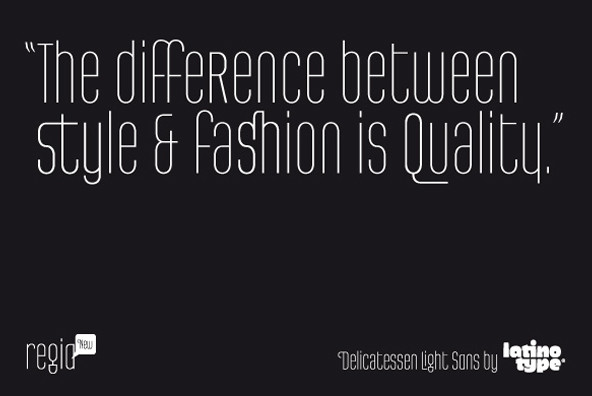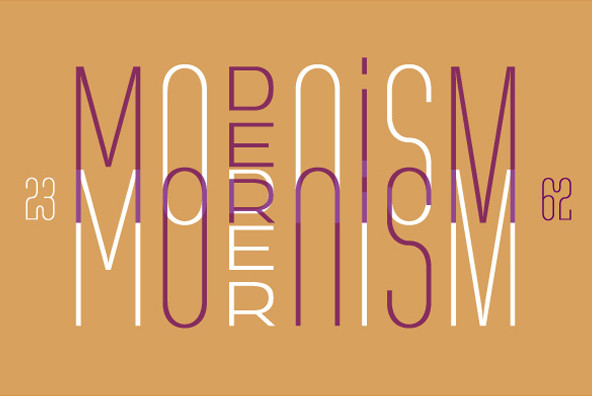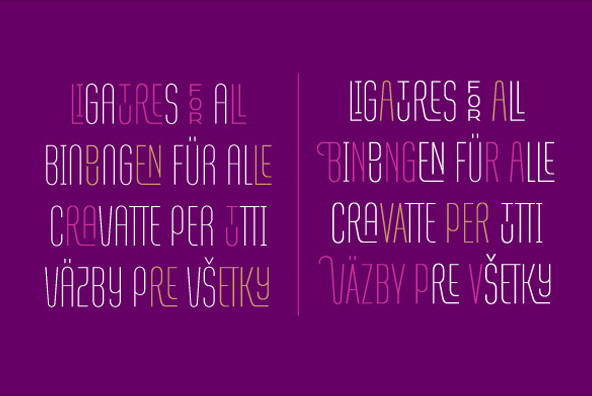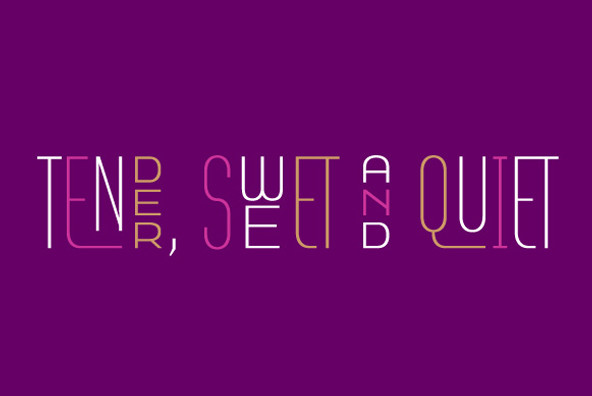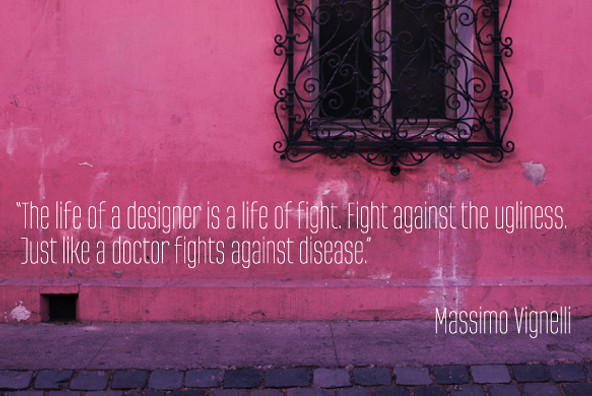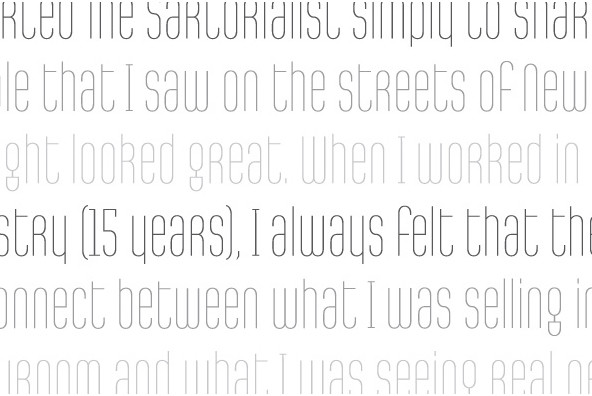
Regia Sans Pro
Foundry: LatinoType
Regia Sans is a typeface that began in 2008, in Concepción, Chile, and was first released for sale to see Latinotype. Is a very thin and condensed font with a modular design. It is recommended for short texts, in logos, magazines, posters, etc. This new version includes more than 1,300 characters in Opentype format, many ligatures (including diacritical marks and numbers), two groups of alternate characters, and some swash characters. Languages include: Basic Latin, Western European, Euro, Catalan, Baltic, Turkish, Central European, Romania, Pan African Latin. Photos by Sergio Recabarren.
Designed by Luciano Vergara in 2010.